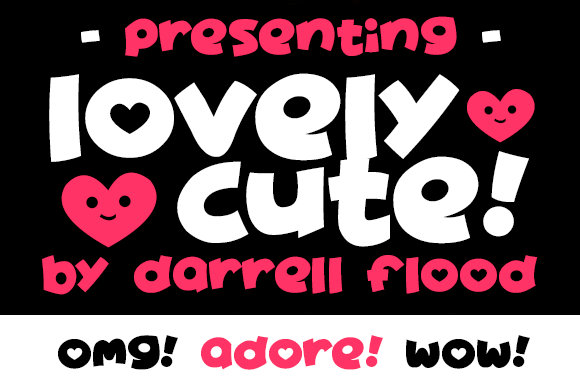
Introduction to Lovely Cute Font
As a designer, have you ever found yourself searching for the perfect font to add a touch of whimsy to your project? I know I have. And let me tell you, there’s nothing quite like the thrill of stumbling upon a font that makes your creative heart skip a beat. For me, that font is the Lovely Cute Font, a delightful, round, and fun-filled design that’s perfect for lovey-dovey stories, Valentine’s cards, and general cartoon use.
What I love most about the Lovely Cute Font is its high-quality design, which makes it a valuable resource for any creative project. Whether you’re working on a children’s book, a social media campaign, or a wedding invitation, this font is sure to bring a smile to your face and a touch of magic to your design. And the best part? It’s available for free download, complete with a transparent background, making it easy to incorporate into your design without any hassle.
- Unique characteristics include rounded edges, soft lines, and playful flourishes
- Great for designers, artists, and writers looking for a cute and endearing font style
Honest Review: Lovely Cute Font
As a designer, I’m always on the lookout for high-quality design resources to elevate my creative projects. Recently, I stumbled upon the Lovely Cute Font, and I’m excited to share my honest review.
What works well: ✨ The font is incredibly versatile and can be used for a variety of design projects, from children’s books to wedding invitations. The font’s cute and playful style makes it perfect for adding a touch of whimsy to any design. The font also comes with a transparent background, making it easy to layer and customize.
Overall impression: I’m really impressed with the Lovely Cute Font, and I think it’s a great addition to any designer’s toolkit. While it has some limitations, it’s a high-quality resource that’s perfect for personal or non-commercial projects.
- Cute and versatile design style
For a high-quality design, use the Lovely Cute Font in conjunction with a transparent background to create a clean and modern look. Experiment with different font sizes and colors to add visual interest to your creative project.
The Lovely Cute Font is perfect for a variety of creative projects, including social media graphics, blog posts, and children’s educational materials. Its high-quality design and free download make it an ideal design resource for anyone looking to add a touch of whimsy to their work.
The Lovely Cute Font is designed to be versatile and can be used effectively in a wide range of sizes, from small text to large headings. However, for optimal legibility, we recommend using the font at sizes ranging from 12pt to 48pt, depending on the specific design requirements and intended use of the font.